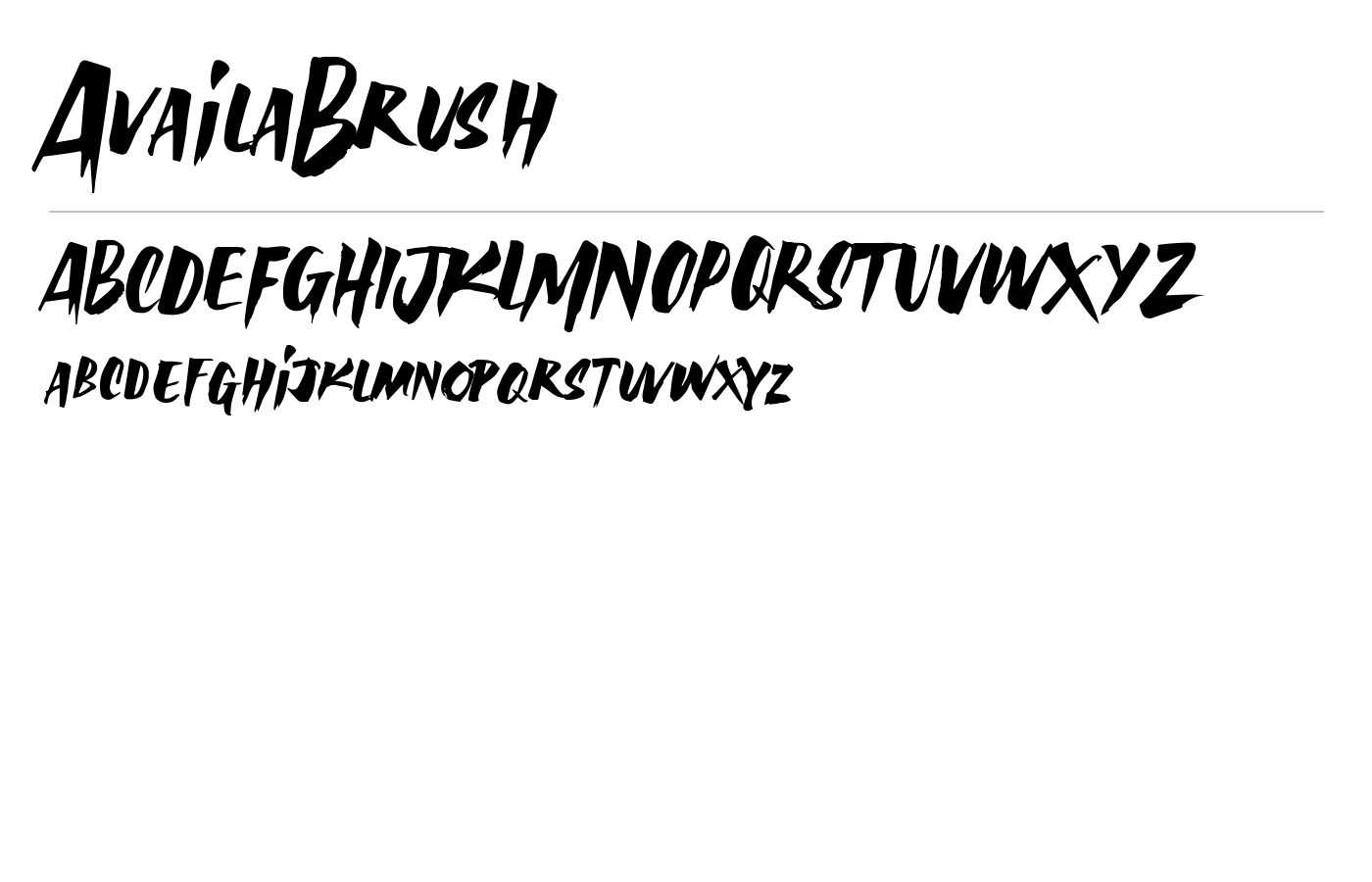
AvailaBrush is a bold and dynamic brush script font that captures a raw, energetic feel with its sharp, irregular strokes and hand-painted style. Its tall, narrow letterforms and uneven edges give it a spontaneous and edgy personality, making it ideal for creative projects, branding, and headlines that seek a strong, artistic impact. This font works especially well in designs wanting to convey a youthful, urban vibe or a handcrafted, expressive touch.
AvailaBrush Font
About AvailaBrush Font
| Font family | AvailaBrush Font |
| Designer | Dimas Aditya |